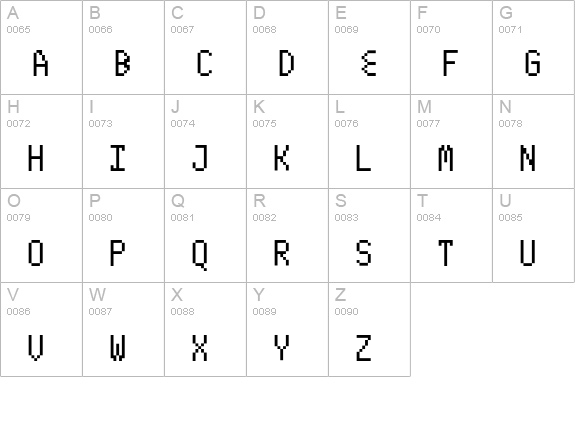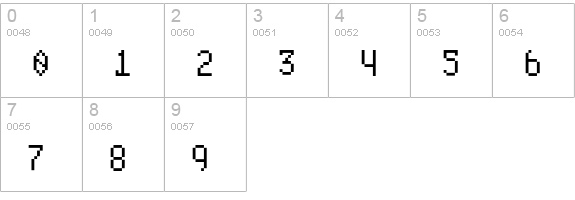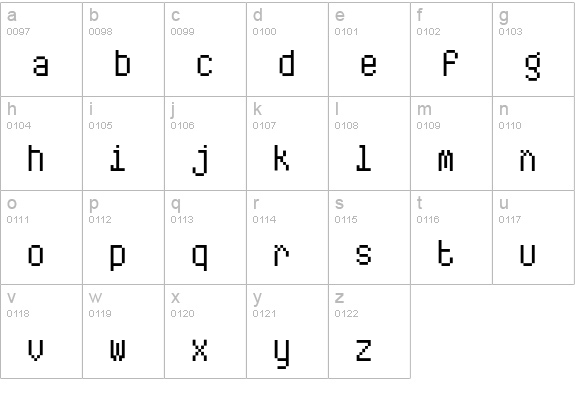
ABS5 Font Details
Introducing ABS5 font, a sleek and modern typeface perfect for all your design needs. With its clean lines and contemporary style, ABS5 is sure to make your projects stand out. This versatile font is ideal for a wide range of applications, from logos and branding to website design and printed materials. Best of all, ABS5 is completely free to download! You can get your hands on this fantastic font at FontsMarket.com, where you'll find a wide selection of high-quality fonts for all your creative endeavors. Don't miss out on the opportunity to add ABS5 to your font library today and take your designs to the next level.